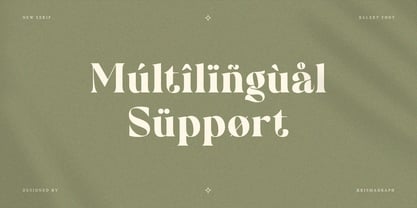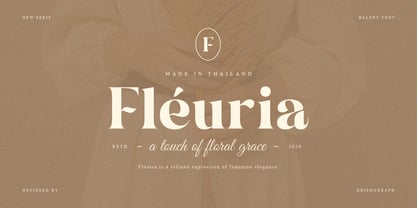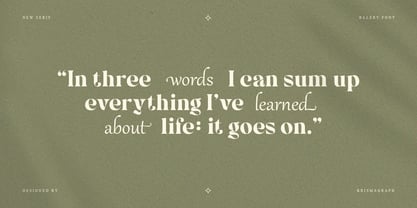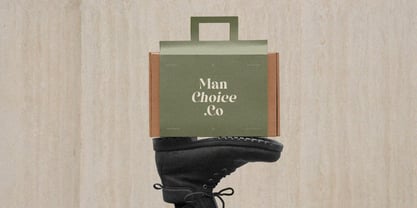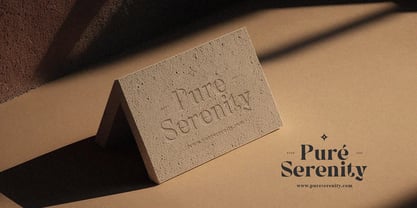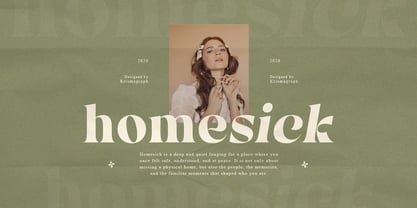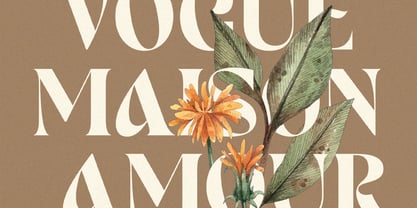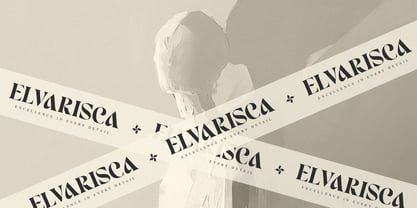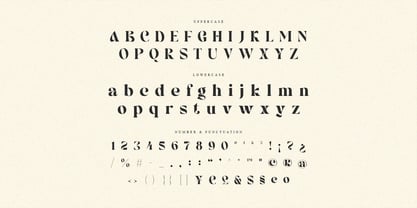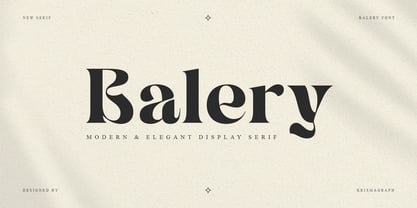
Balery
by Krismagraph
The Balery Font Family was designed by Ratna Krismawati and published by Krismagraph. Balery contains 1 styles. More about this family
Balery is a modern and elegant display serif font that blends graceful curves, refined contrast, and distinctive letterforms into a sophisticated typographic experience. Designed with a timeless aesthetic and contemporary character, Balery delivers a luxurious and expressive presence that instantly elevates any visual composition.
Its beautifully balanced proportions and stylish details make Balery ideal for branding projects, logos, editorial layouts, packaging, website headers, posters, invitations, social media graphics, and premium print materials. The font's display-oriented design creates strong visual impact while preserving elegance and readability.
Balery is crafted for designers who seek a serif display font that feels modern, feminine, and refined. Whether used in bold headlines or elegant branding applications, Balery brings a sense of sophistication and personality to every project.
Designers: Ratna Krismawati
Foundry: Krismagraph